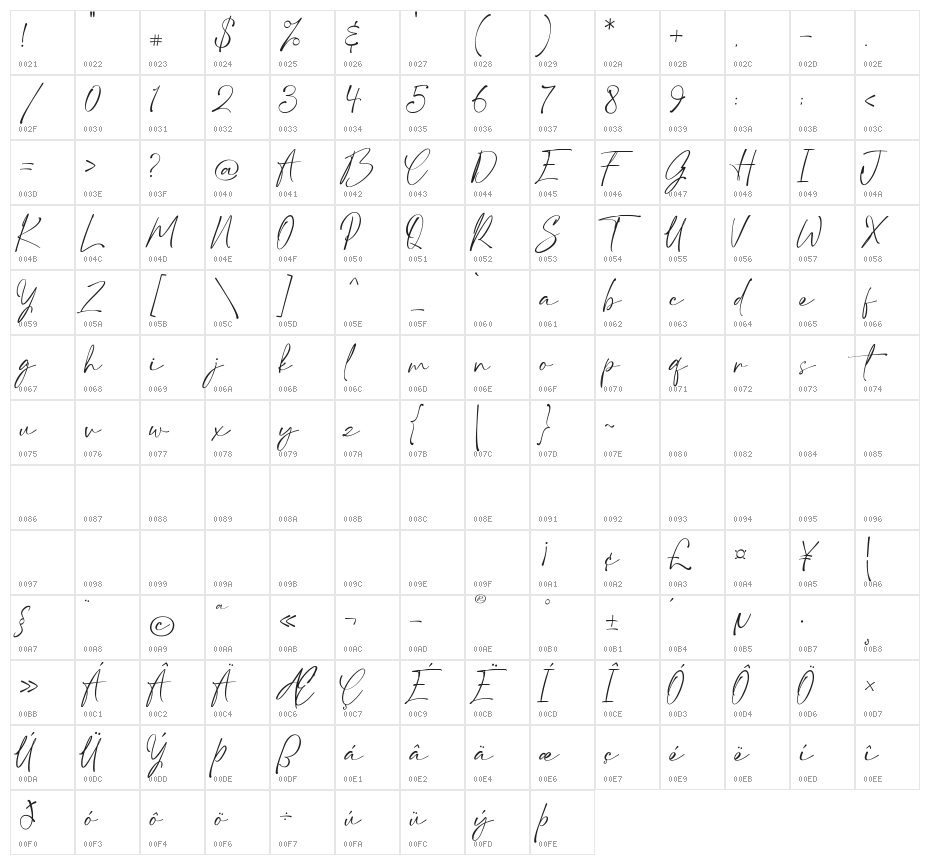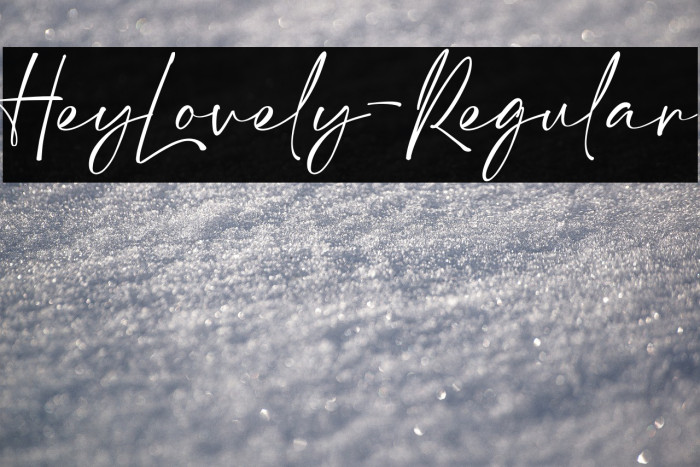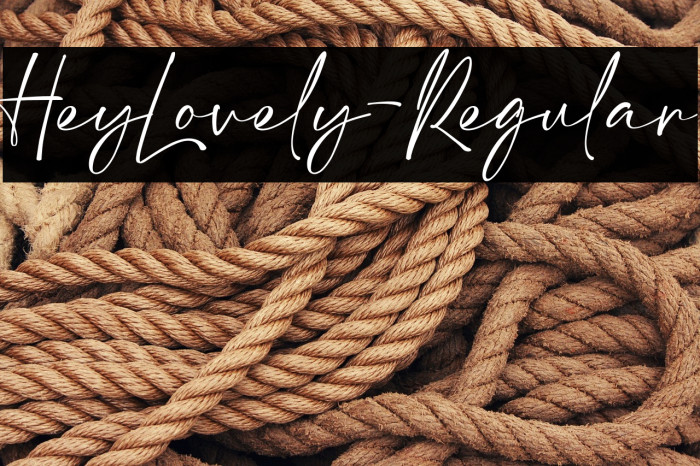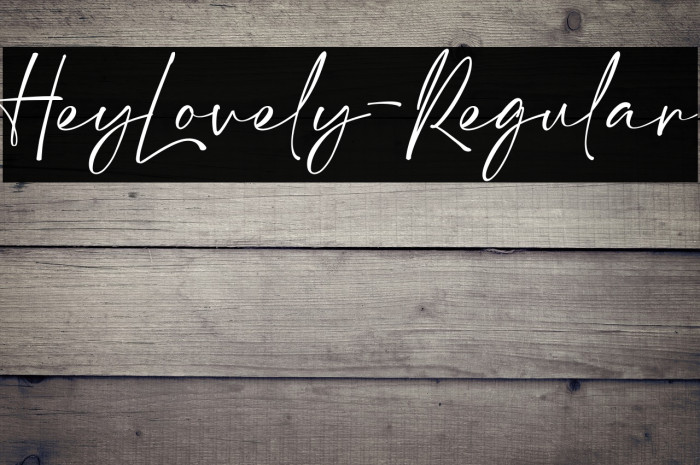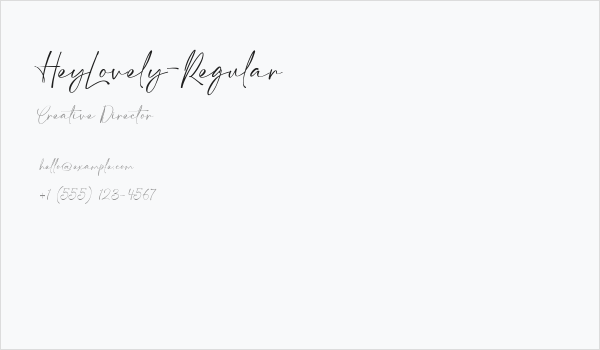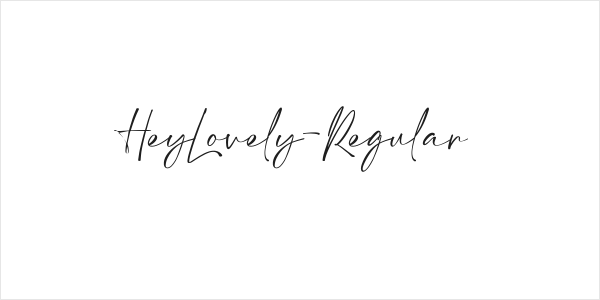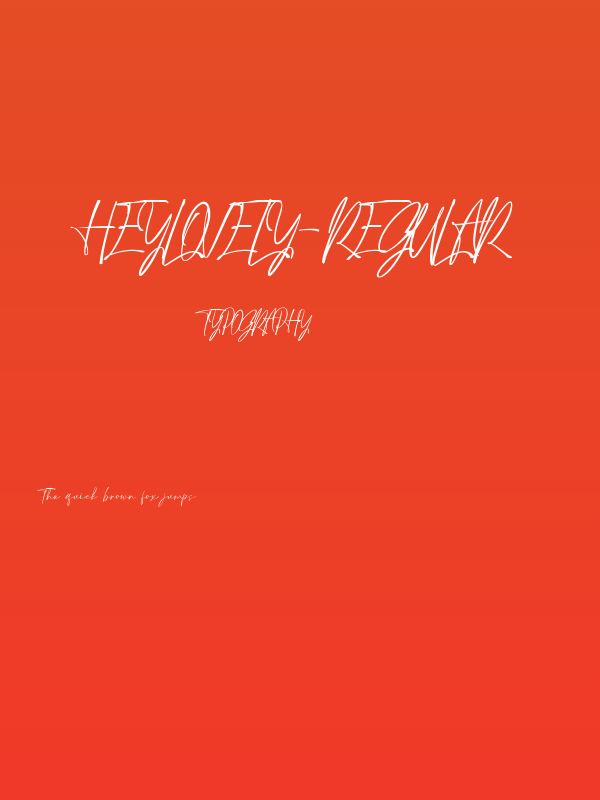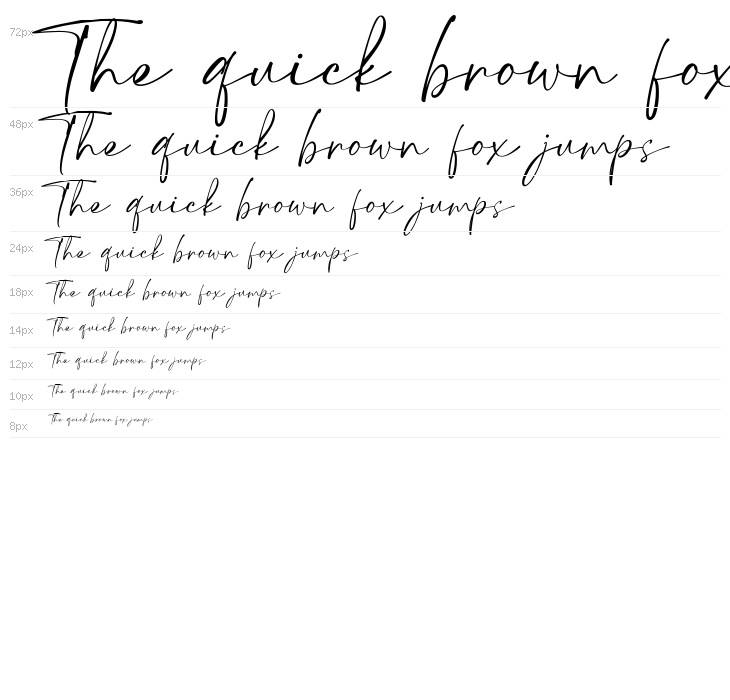
HeyLovely-Regular Font
HeyLovely-Regular Description
This font features a lively and flowing script style, characterized by its elegant, handwritten appearance. The letters are connected with smooth, sweeping strokes, giving it a dynamic and personal touch. The uppercase letters are tall and slender, while the lowercase letters maintain a consistent flow, enhancing readability. The numerals and special characters are crafted with the same fluidity, ensuring a cohesive look throughout. This font exudes a sense of sophistication and charm, making it ideal for projects that require a personal or artistic flair.
Use CaseLogos, Headlines, Invitations
Proposed ProjectsIdeal for wedding invitations, greeting cards, personal branding, and artistic projects.